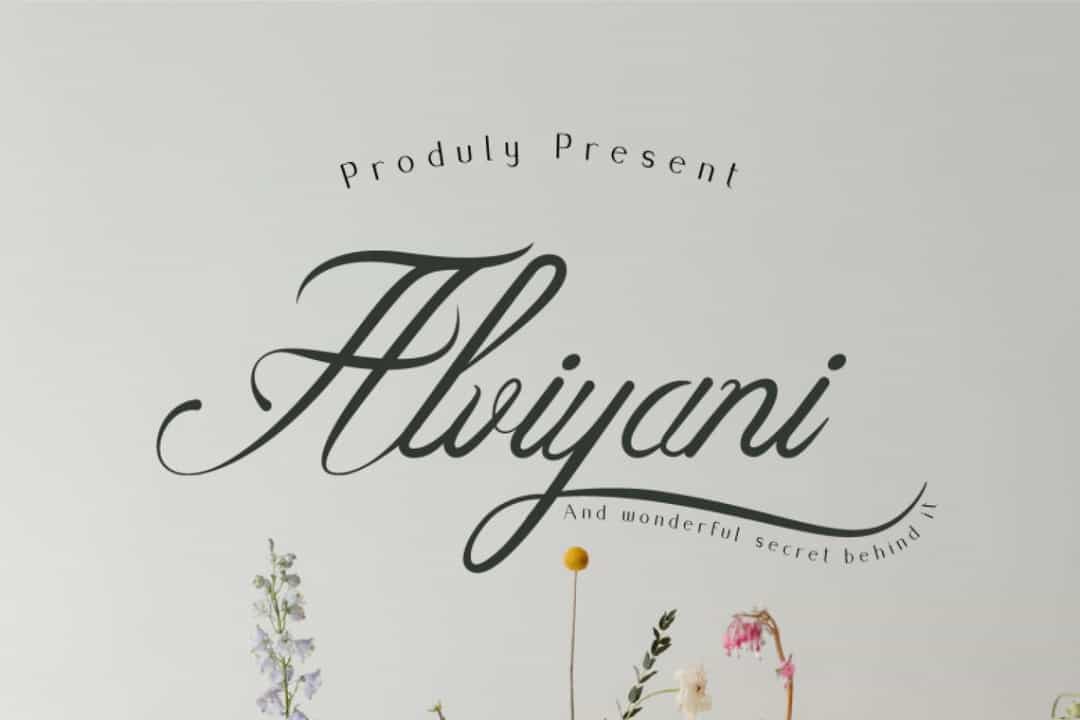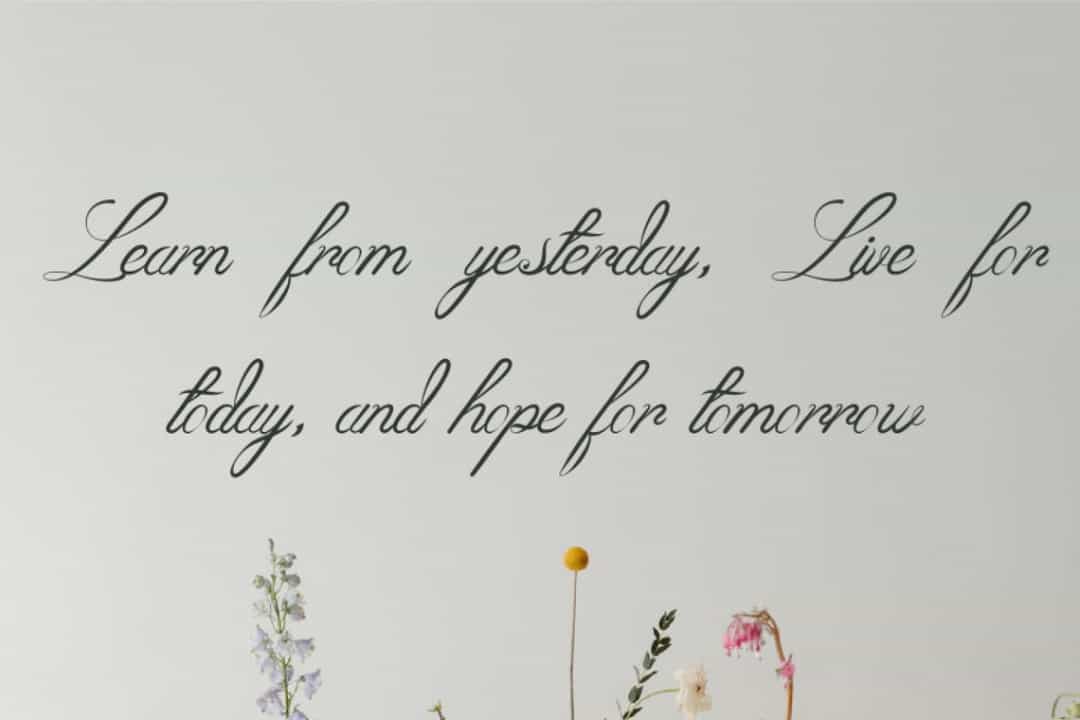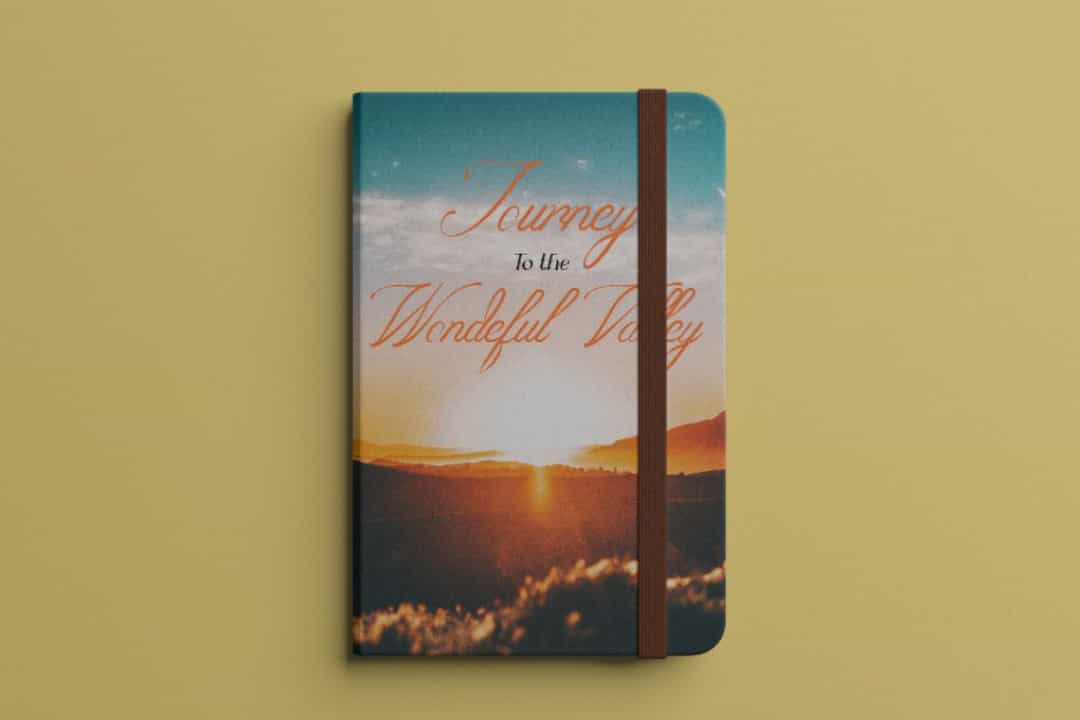
Alviyani Calligraphy Font is a contemporary beautiful, elegant, and stunning script typeface that captures contemporary aesthetic. The elegant curves make this font suitable for designing wedding invitations, business cards, album titles and many other projects.